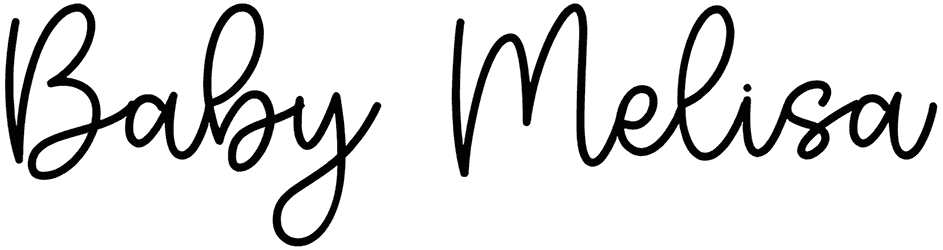
Baby Melisa Font
Create a ravishing layout with this pretty cursive font to leave a nice first impression on your followers. This handwritten font has a natural and eye-catching form that could be perfect for varied informal projects. Apply the Baby Melisa font to your next creative design and be sure, it’s gonna become unique.